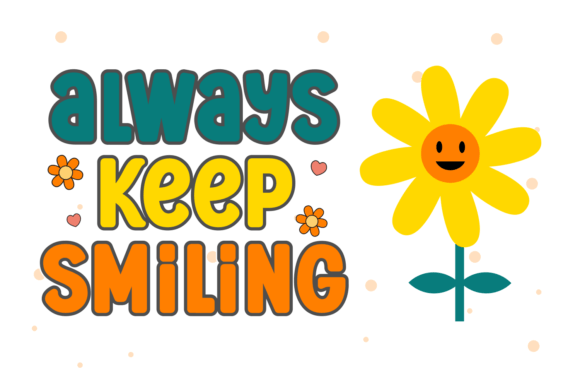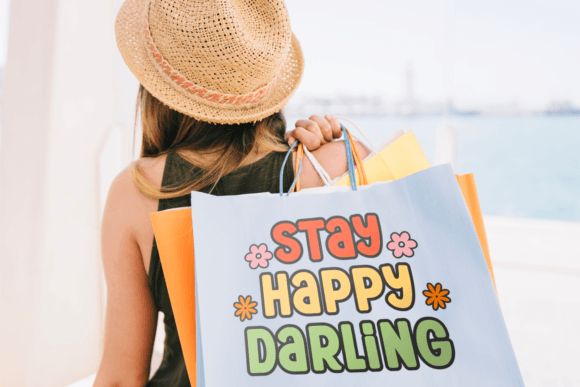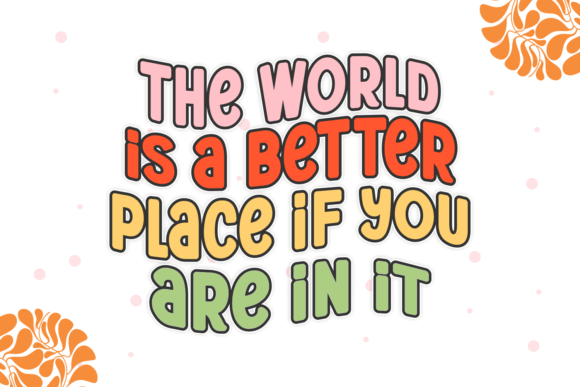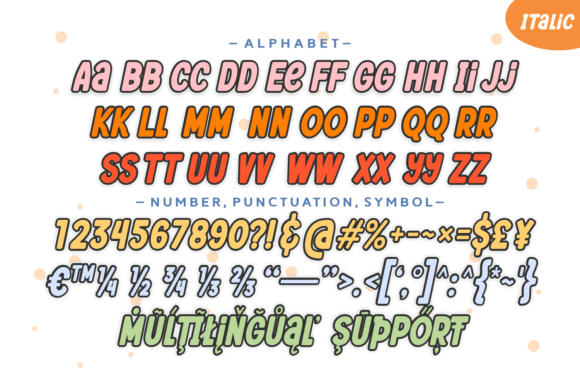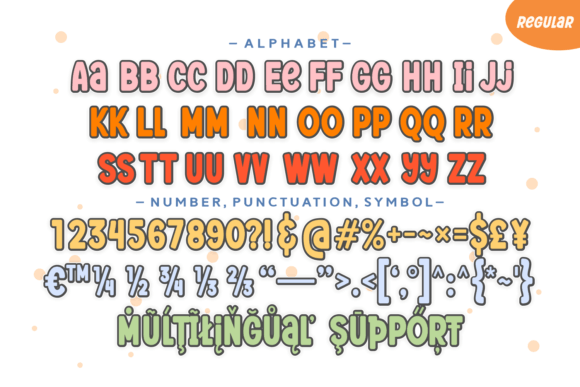
Introduction to Retro Campus Font
Imbued with vivacious spirit, Retro Campus is a striking display font that infuses your work with an irresistible sense of exuberance.
Its frolicsome, stylized curves are endowed with an inherent boldness, lending an infectiously joyful finishing touch to all creative designs Ideal for head-turning headlines, attention-grabbing posters, or any project yearning for a dose of dynamic personality, Retro Campus guarantees to enhance your text with its vibrant allure.
Key Features of Retro Campus Font